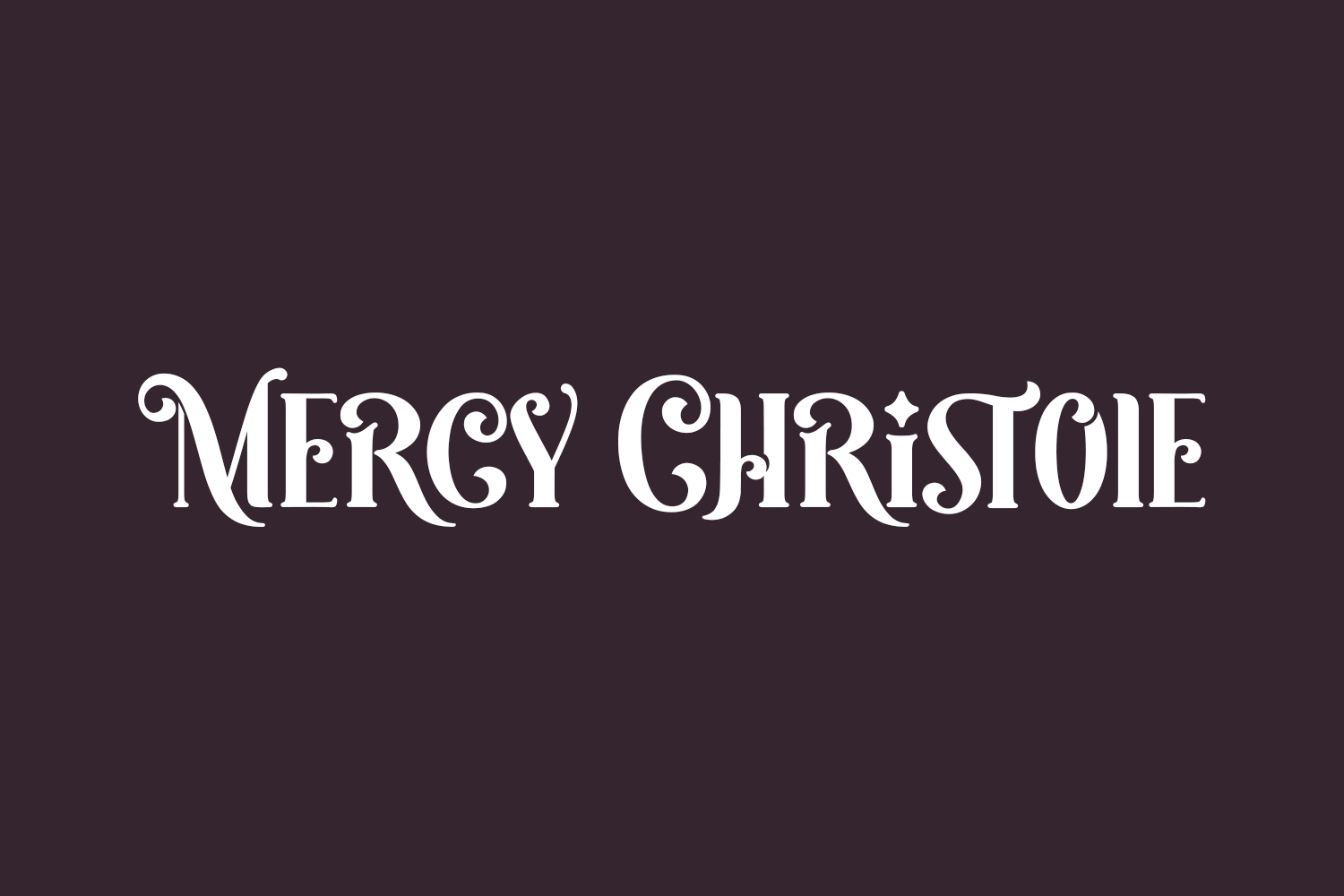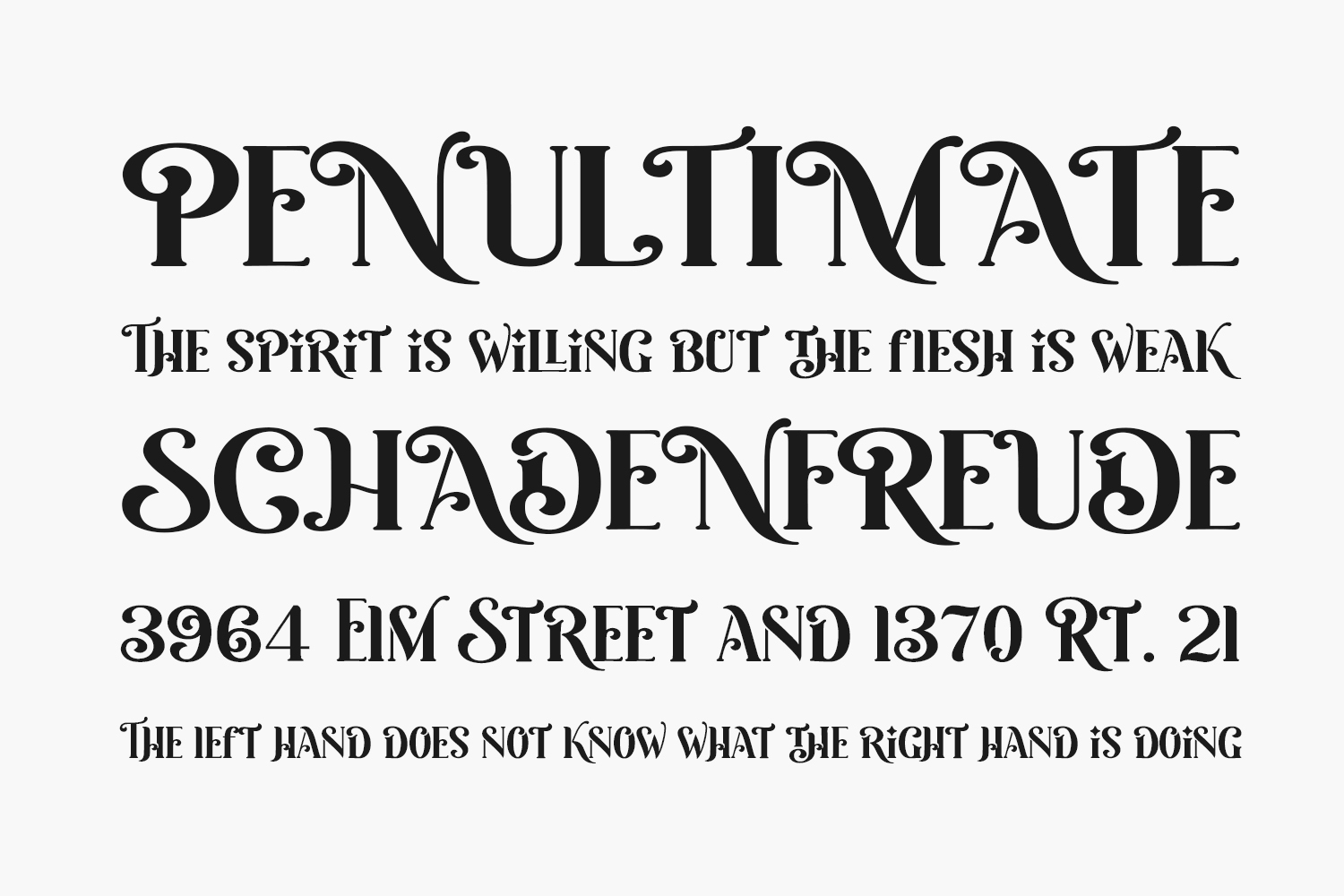
Discover the exquisite craftsmanship of Mercy Christole Free Font, an intricately designed and unique display font. With its trendy and fashionable aesthetic, this font will effortlessly elevate all of your creative endeavors. Mercy Christole Free Font is free for personal use only. Please purchase the full version for commercial use.